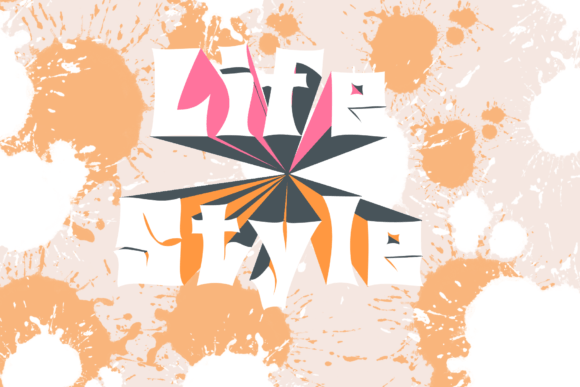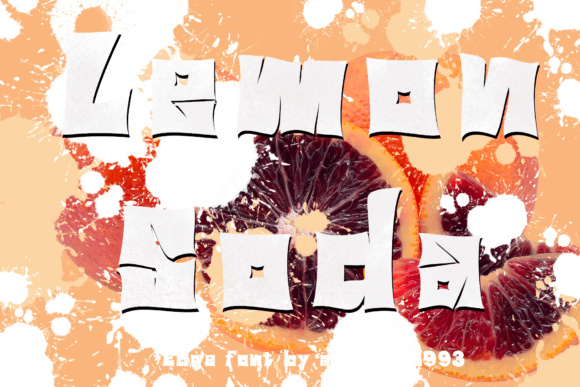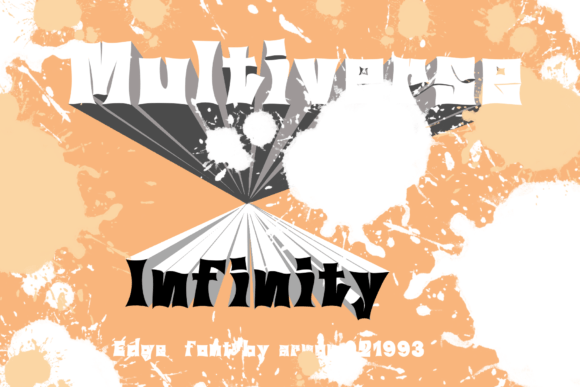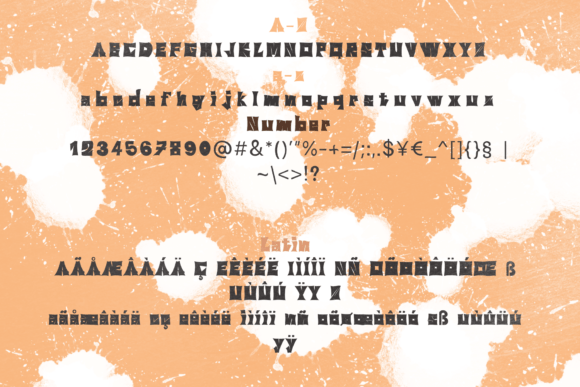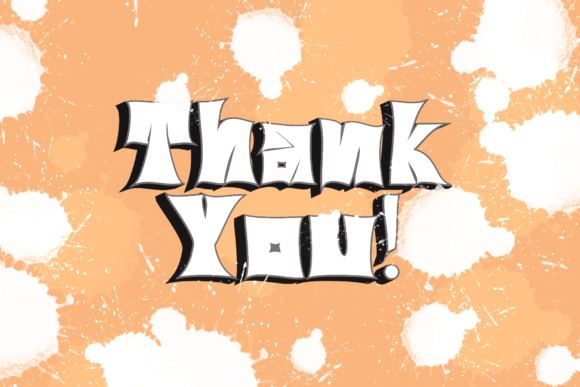
Introducing Edge Font: The Perfect Blend of Retro Charm and Contemporary Style
Are you tired of using the same old fonts in your design projects? Look no further than Edge Font, a vibrant and energetic typeface that’s sure to add a touch of funk and personality to your work. This font pulsates with energy and is a delightful blend of retro charm and contemporary style, making it perfect for designers and crafters looking to add some excitement to their projects.
The Unique Characteristics of Edge Font
So, what sets Edge Font apart from other typefaces? For starters, the strokes are fluid and dynamic, as if captured in the midst of a groovy dance move. Curves twist and turn with a playful rhythm and exaggerated forms, giving the font a lively and carefree feel. This unique combination of characteristics makes Edge Font a standout choice for projects that require a touch of whimsy and fun.
The Perfect Choice for Attention-Grabbing Designs
Edge Font lends itself well to a variety of design applications, including album covers, posters, advertisements, and any project that demands attention and exudes an infectious sense of fun. Whether you’re working on a music project, a marketing campaign, or simply a personal craft project, Edge Font is the perfect choice for adding a dash of personality and flair.
Why Designers and Crafters Love Edge Font
Designers and crafters love Edge Font for its versatility and expressiveness. The font’s unique blend of retro and contemporary styles makes it perfect for a wide range of projects, from vintage-inspired designs to modern and edgy applications. Plus, the font’s exaggerated forms and playful rhythm make it a joy to work with, allowing designers to add a touch of whimsy and fun to their work.
Tips for Using Edge Font in Your Designs
So, how can you make the most of Edge Font in your designs? Here are a few tips to get you started:
- Use Edge Font as a statement piece: With its bold and eye-catching design, Edge Font is perfect for use as a statement piece in your projects. Try using it as a headline or title font to grab attention and add visual interest.
- Experiment with different colors: Edge Font looks great in a variety of colors, so don’t be afraid to experiment and find the perfect hue for your project. Bright and bold colors work particularly well with this font, adding to its energetic and playful vibe.
- Pair Edge Font with complementary fonts: For a more polished look, try pairing Edge Font with complementary fonts that share similar design elements. This will help to create a cohesive and visually appealing design.
The Benefits of Using Edge Font in Your Designs
So, what are the benefits of using Edge Font in your designs? Here are just a few:
- Adds a touch of personality: Edge Font is a unique and expressive typeface that’s sure to add a touch of personality to your designs.
- Grabs attention: With its bold and eye-catching design, Edge Font is perfect for grabbing attention and adding visual interest to your projects.
- Versatile: Edge Font can be used in a wide range of design applications, from album covers and posters to advertisements and personal craft projects.
In conclusion, Edge Font is a vibrant and energetic typeface that’s perfect for designers and crafters looking to add a touch of funk and personality to their projects. With its unique blend of retro charm and contemporary style, fluid strokes, and playful rhythm, Edge Font is sure to make a statement in any design. So why settle for boring, generic fonts when you can add a dash of excitement and whimsy with Edge Font?